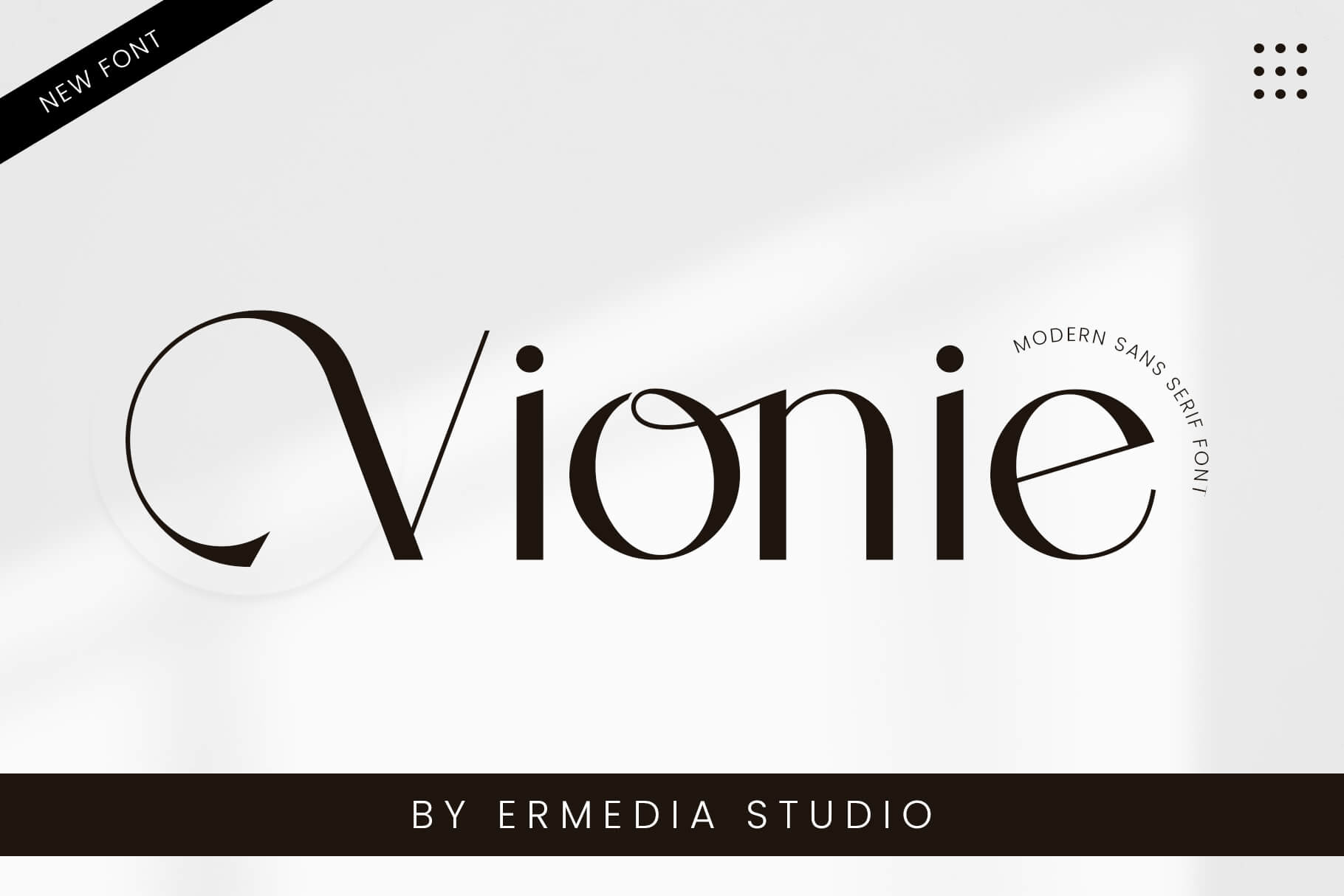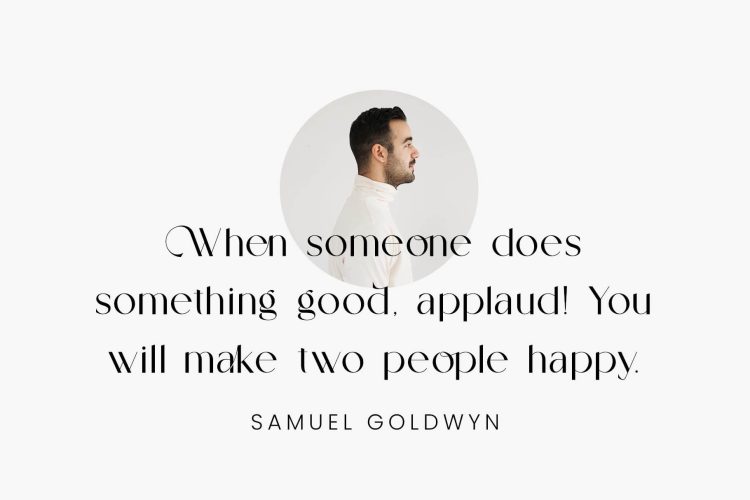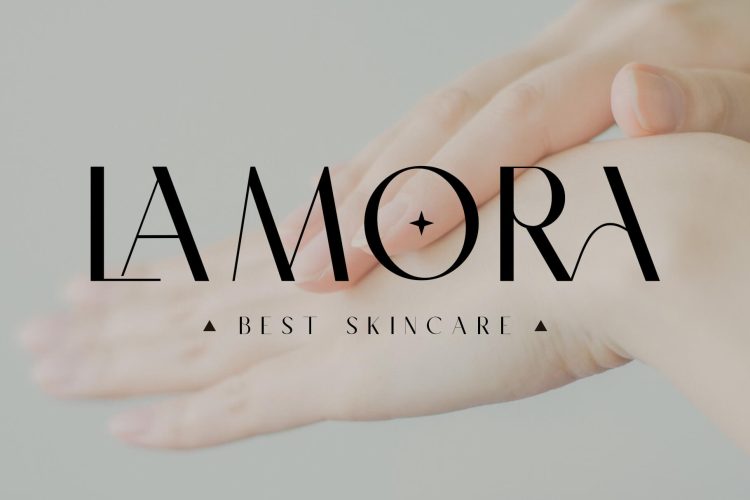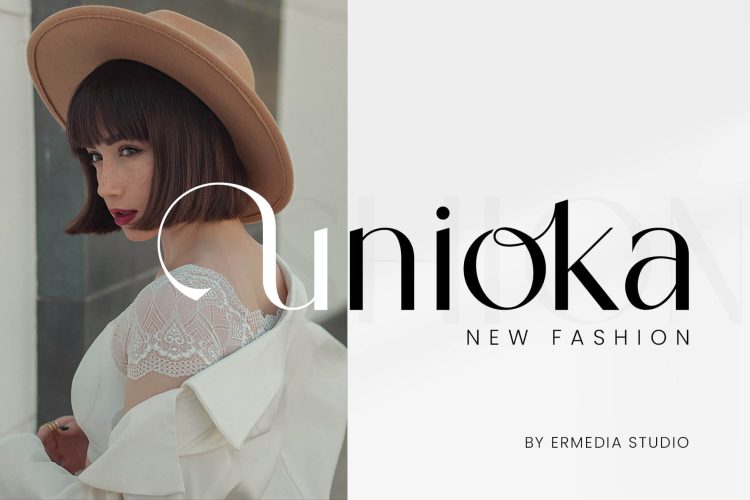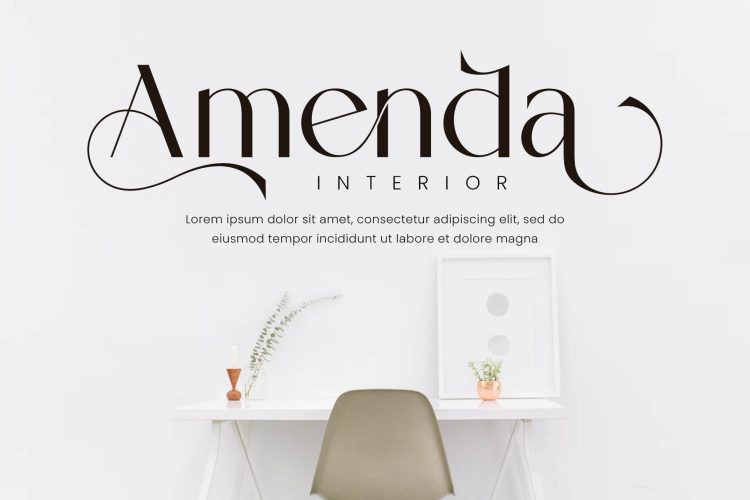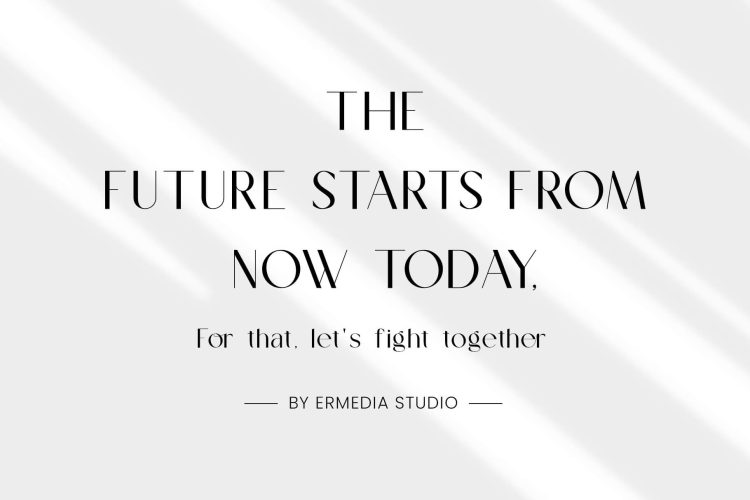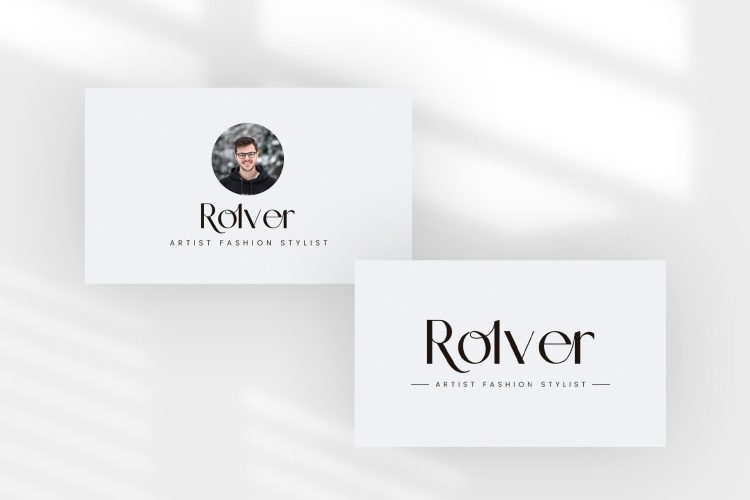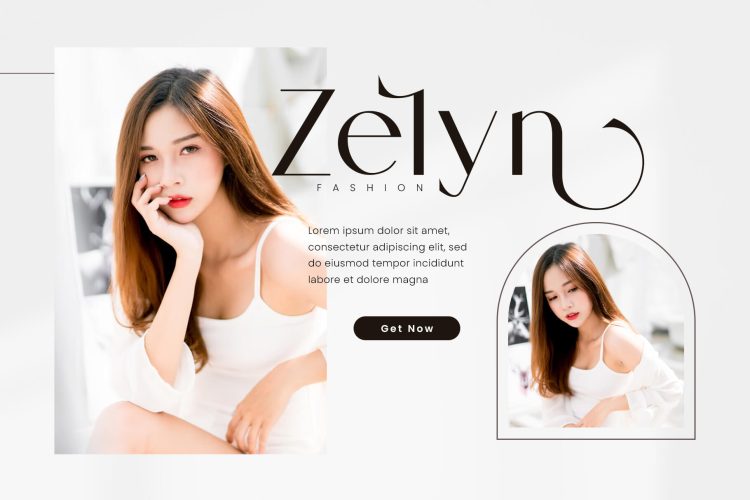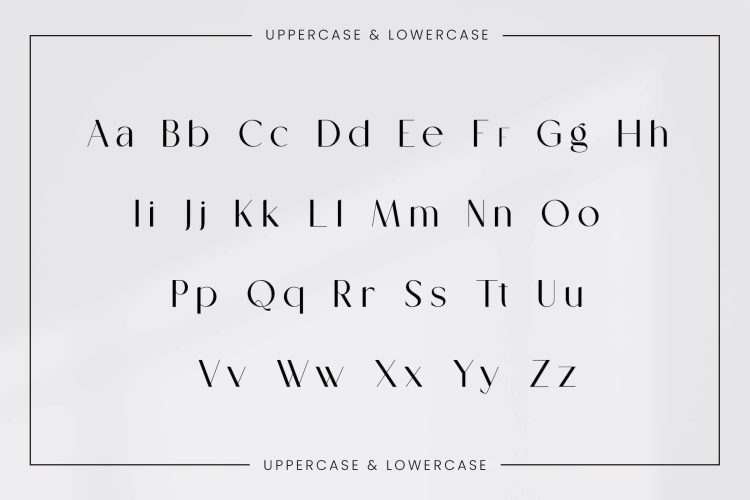
Vionie
Introducing Vionie Sans Serif Font: is a balanced, smooth, elegant and stylish sans serif font. He has a beautiful character. Very suitable to be combined with invitation card designs, company logos, film titles, film names, business cards, book titles, brand names and various other designs. Vionie Sans Serif is a smooth sans serif font that exudes sophistication and elegance.This charming and stylish font makes this font the perfect partner for any project.
Vionie – Sans Serif Font